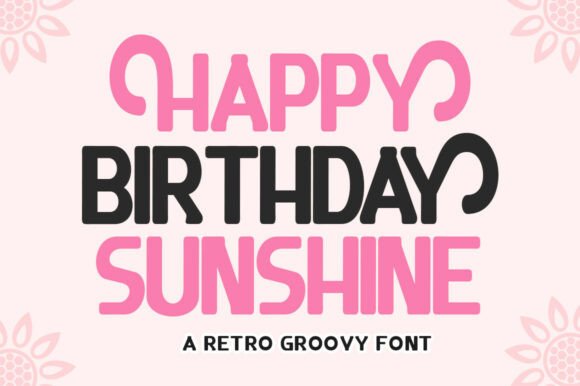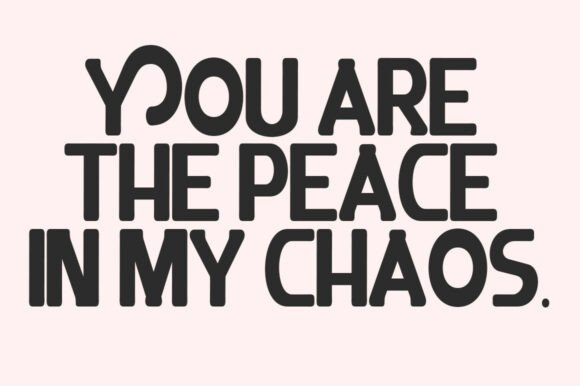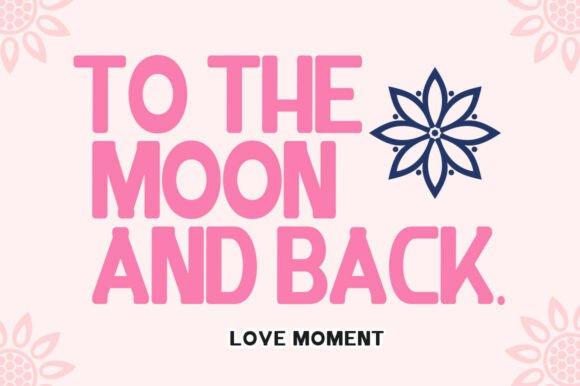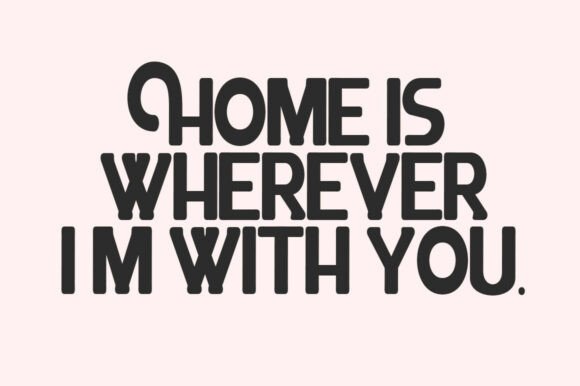
Introduction to Heart Chunky Font
Bring a bold, bubbly, and nostalgic vibe to your designs with Heart Chunky, a playful retro groovy font inspired by 70s letterforms.
Its thick curves, smooth edges, and fun swashes make it perfect for eye-catching quotes, shirts, stickers, posters, branding, and more This font includes uppercase, lowercase, numbers, punctuation, and unique stylistic alternates to help you create standout artwork with a vintage flair.